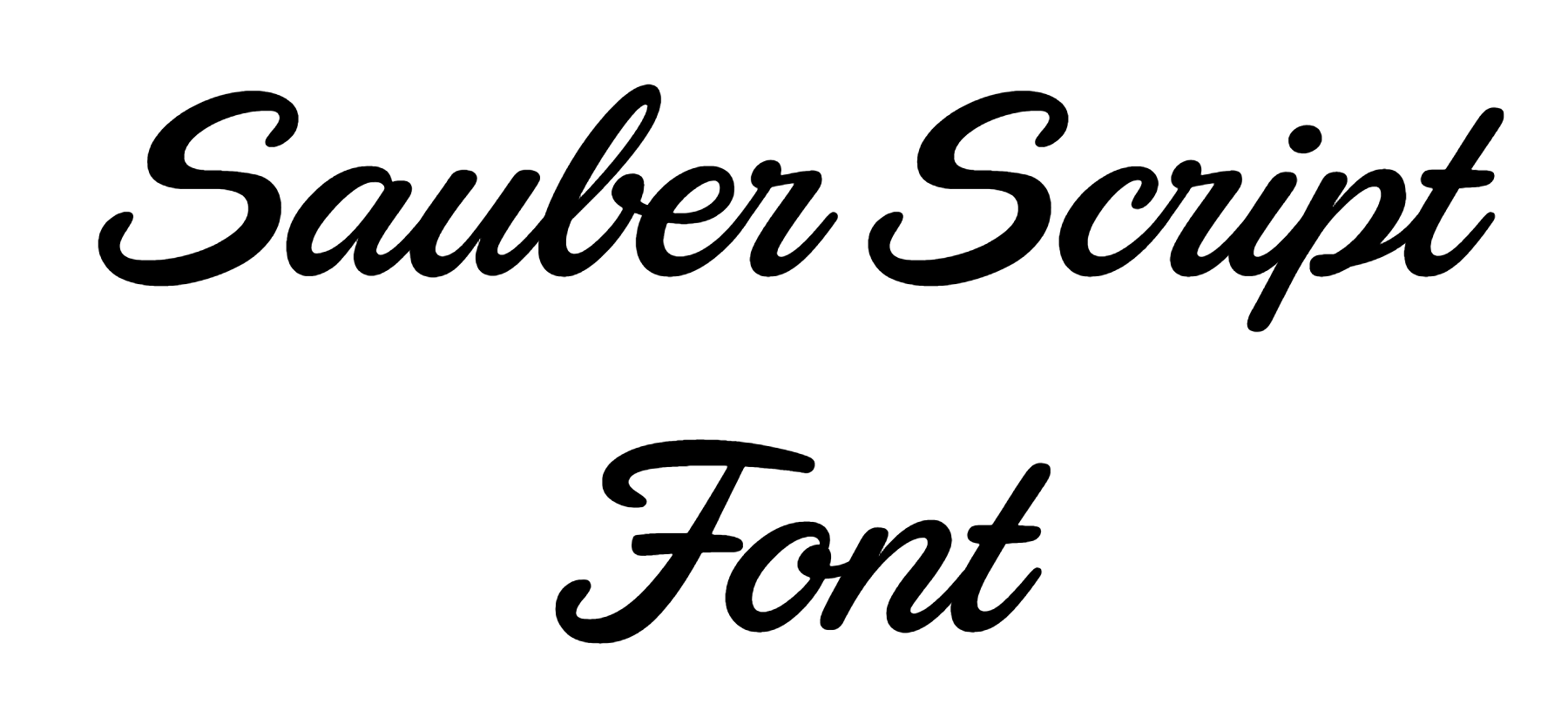
Sauber Script
Sauber Script is a script font designed by Michael Hochleitner and published by Typejockeys (2014). It has that hand-lettered, flowing feel people look for when regular type seems too stiff. It's a free download, and you can try it with your own text in the preview above first.
What You Can Type With Sauber Script
With complete upper and lowercase letters and all ten digits, Sauber Script is ready for real wording, not just a single headline. Everyday marks like &, !, ? and @ are there too. Thanks to its accented letters, it also works for Spanish, French, German, Portuguese and Italian, not just English.
Ligatures and Smart Letters in Sauber Script
Ligatures and contextual alternates switch on by themselves: some letter pairs join into one shape and letters change to fit their neighbours, so repeated letters don't look copy-pasted. This works automatically in most design apps and modern browsers.
Where Sauber Script Works Best
Designers usually reach for fonts like Sauber Script when they're making wedding invitations, logos and signature-style headings. Script fonts read best in short bursts, so keep it to names, titles and one-line quotes. Skip all caps: script capitals are drawn to start a word, not to fill one.
Who designed Sauber Script font?
Sauber Script was designed by Michael Hochleitner and published by Typejockeys. The copyright line inside the font is dated 2014.
Does Sauber Script have ligatures?
Yes. Sauber Script has ligatures that turn on by themselves in most design apps and browsers, so you don't need to do anything special.
Does Sauber Script support accented letters?
Yes. Sauber Script includes the accented letters needed for Spanish, French, German, Portuguese and Italian, so it works for more than just English.